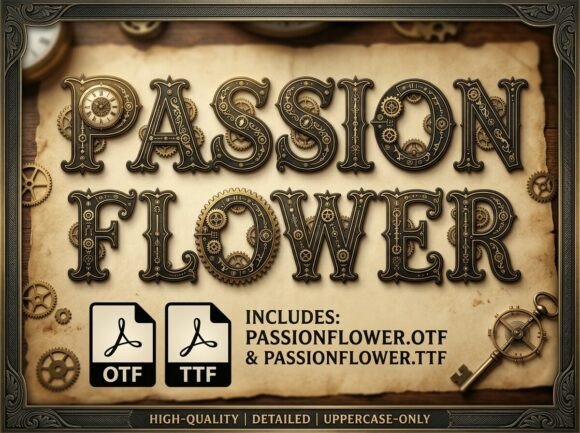
Passion Flower: The Clockwork Typeface for Industrial Design
If you’ve ever found yourself sketching out a concept for a world where steam-powered machinery coexists with Victorian elegance, you know that the typography has to do more than just spell out words. It needs to transport the viewer immediately. Standard fonts often fall flat when trying to convey that specific blend of nostalgia and industrial grit. That is exactly where Passion Flower enters the frame. This isn’t just a collection of letters; it is a piece of mechanical artistry designed to bring a very specific, intricate aesthetic to your creative projects.
At its core, Passion Flower is a premium font that balances ornate vintage structures with the rigid geometry of industrial design. Imagine the intricate workings of a pocket watch or the exposed gears of a Victorian locomotive—that is the visual language this typeface speaks. It functions as a display font, meaning it is engineered to command attention in headlines, logos, and signage rather than long-form body text. The defining characteristic of Passion Flower is its complex internal machinery. The negative space within the letters often mimics cogs, pistons, and lattice work, giving the text a three-dimensional, metallic feel without the need for drop shadows or bevel effects.
Aesthetic Depth: More Than Just a Serif
While Passion Flower is rooted in the structure of a serif font, it pushes the boundaries of traditional typography. The serifs themselves are often reinforced, looking less like gentle strokes and more like riveted steel plates or structural buttresses. This creates a robust foundation that ensures your headlines remain commanding and legible, even amidst the complexity of the design. It offers an unparalleled level of industrial depth that feels tactile; you can almost hear the ticking of gears when you look at it.
The personality of this typeface is undeniably bold and mechanical, yet it retains a certain vintage charm. It avoids the cold, sterile look of modern geometric fonts. Instead, it embraces the warmth of alternative history and neo-Victorian aesthetics. For designers, this means you have a font that instantly conveys themes of engineering, invention, and the fantastical. It is a creative font that serves as a visual anchor, setting the tone for a world that is both old and impossibly advanced.
Real-World Applications: Where Mechanics Meet Marketing
Understanding the visual style is one thing, but applying it effectively is where the real value lies. Passion Flower is a versatile design asset across several specific niches. Here is how you can leverage this display font in your next project:
Escape Rooms and Immersive Experiences
First impressions are critical in the entertainment industry. If you are designing signage for an escape room, Passion Flower is the definitive choice. Its intricate detailing suggests that there are hidden secrets within the environment. Use it on the entrance signage, the instruction manuals, and the puzzle clues to maintain immersion. The font’s visual weight makes it perfect for guiding players’ eyes to critical information without looking out of place in a steampunk-themed setting.
Publishing and Editorial Design
In the world of editorial design, specifically for neo-Victorian book covers or science fiction novels, the title needs to sell the genre instantly. Passion Flower offers that immediate genre recognition. It works beautifully for titles on dark, moody covers, perhaps paired with imagery of brass and leather. For publishers, using this font helps categorize the book visually before the reader even reads the synopsis. It signals to the audience that this is a story about adventure, machinery, and history.
Game Interfaces and Branding
For indie developers working on alternative history game interfaces, typography is a UI/UX challenge. You need buttons and headers that fit the world but remain readable. Passion Flower excels here because its internal structure, while complex, is built on a logical grid. It provides the brand identity for your game’s menus, inventory screens, and title cards. It helps build a cohesive world that feels lived-in and mechanically sound.
Strategic Implementation: Design, Pairing, and Hierarchy
Using a specialized font like Passion Flower requires a strategic approach to modern typography. Because it is so detailed, it can overwhelm a layout if used incorrectly. Here is practical guidance on integrating it into your design toolkit.
Establishing Visual Hierarchy
Passion Flower is a high-impact font. It demands the spotlight. Therefore, use it exclusively for H1 headers, logos, and pull quotes. Do not attempt to use it for body copy; the intricate details will become muddy at small sizes, and the eye fatigue will be immediate. By restricting Passion Flower to the top of your hierarchy, you create a clear contrast that guides the reader's eye naturally from the ornate headline to the clean content below.
The Art of Font Pairing
A strong font pairing is essential to make Passion Flower work in a professional context. Because Passion Flower is a display font with high "visual noise," it needs a partner that is quiet and legible. Avoid pairing it with other serif fonts or decorative script fonts, as this will create visual chaos.
Ultimately, Passion Flower is more than just a typeface; it is a gateway to a specific genre. It provides the industrial depth required to build immersive worlds, whether on a book cover, a game screen, or a storefront sign. By respecting its complexity and pairing it wisely, you can elevate your creative toolkit and produce work that is truly mechanical in its precision and artistic in its execution.